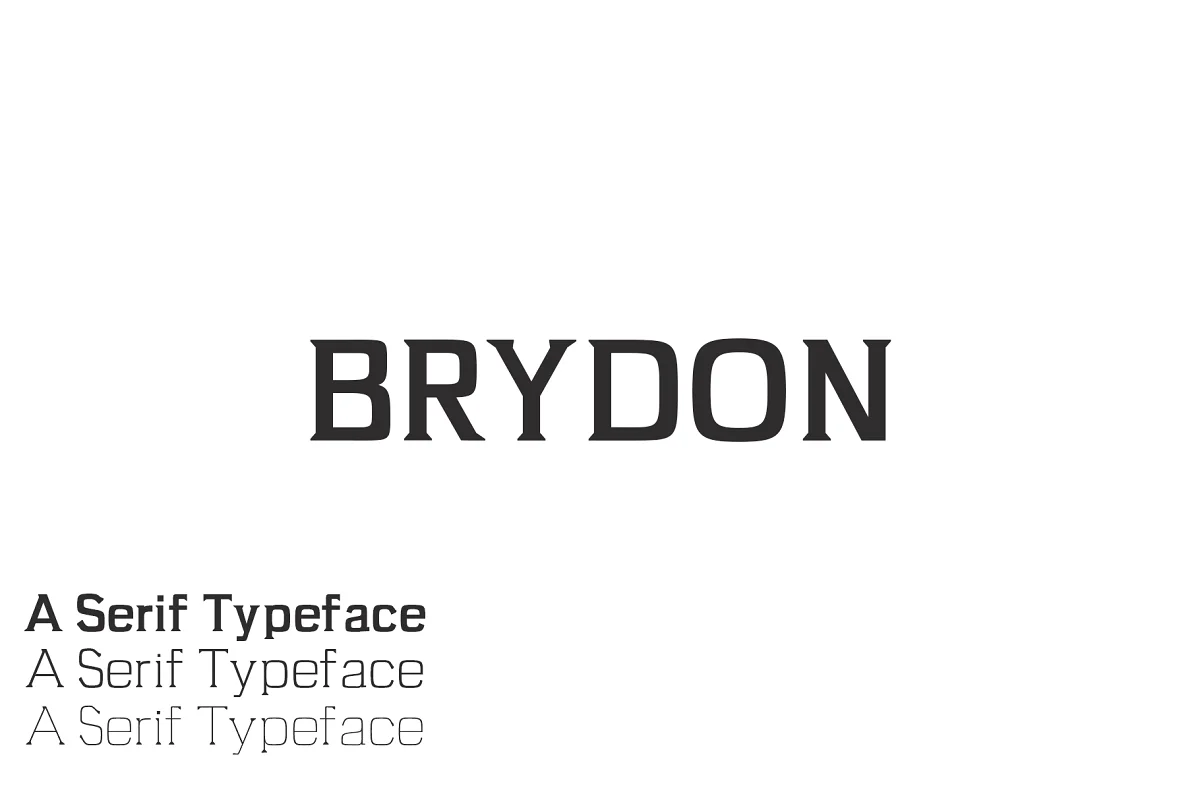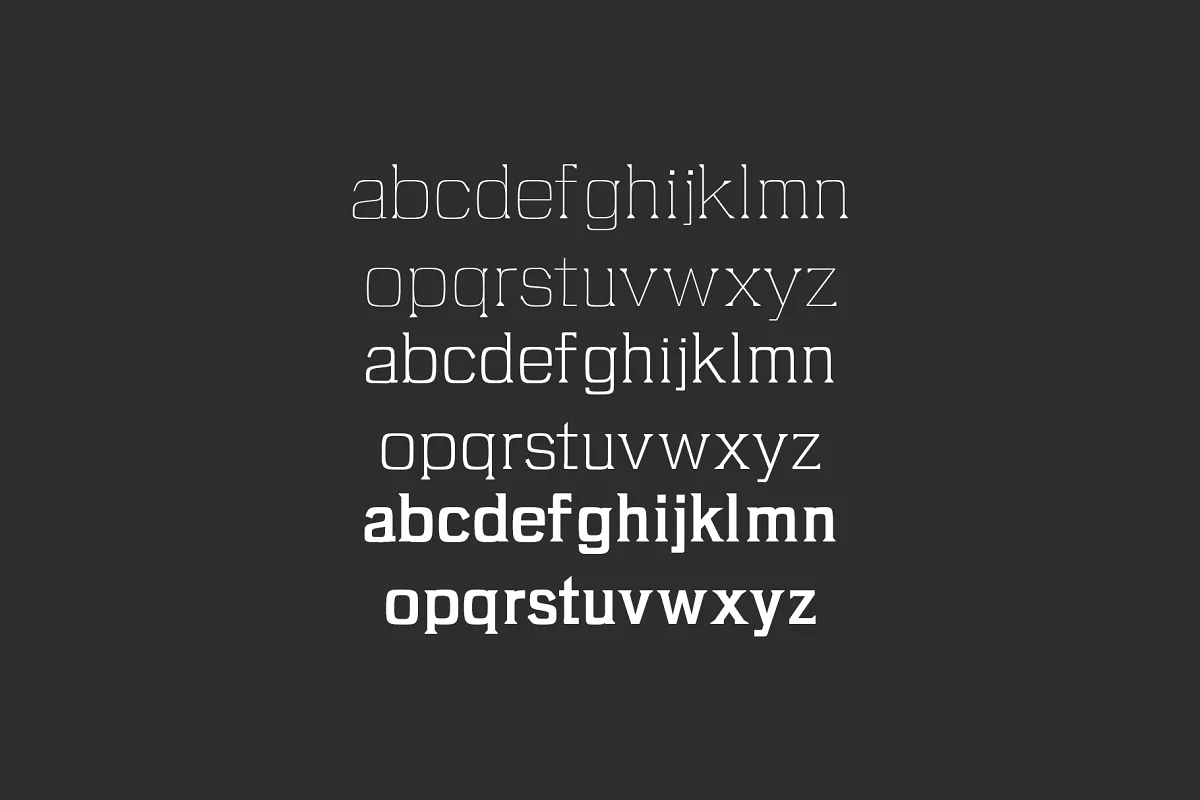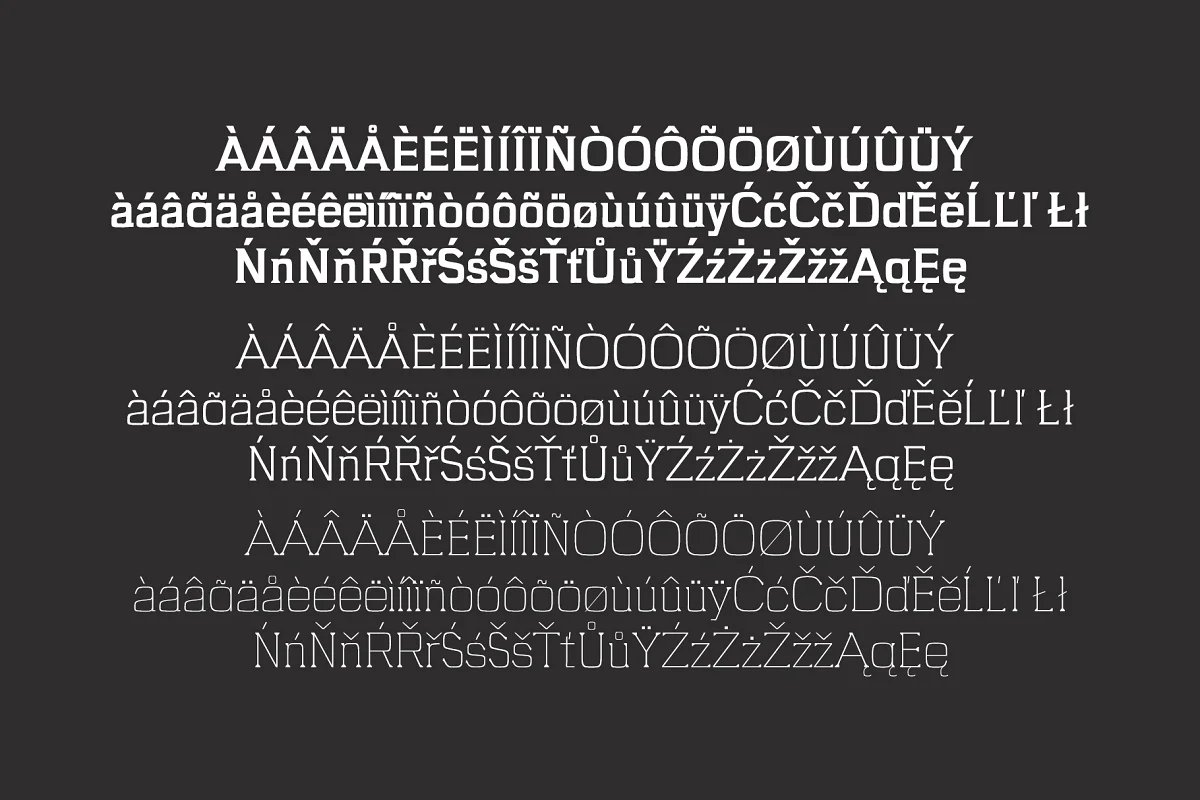
About the Brydon Serif 3 Font
Brydon Serif Typeface is a simple serif font family, which contains 3 weights and It features a unique and modern serif look and feels. Perfect for gorgeous logos, titles, web layouts, and branding.
It looks gorgeous in all caps with a wide-set spacing if you want to try a classy look, or beautiful on its own in capital and lowercase letters for something completely timeless.
- Font Weight: Regular, Thin, and Light
Brydon Font Features:
- Uppercase Multilingual Letters
- Lowercase Multilingual Letters
- Numbers & Punctuation
- Non-English Characters ( Latin Supplement + Latin Extended-A)